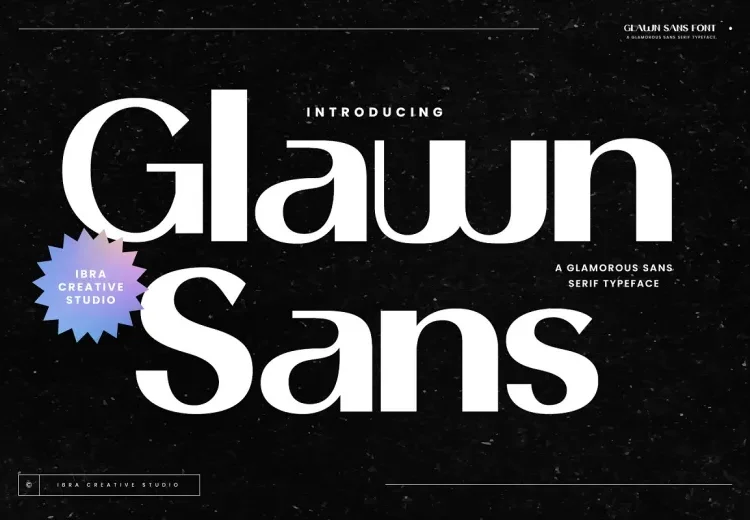
Glawn Sans Font
Glawn Sans is a sophisticated sans-serif font that embodies contemporary elegance through its refined lines and detailed features. Every character is meticulously crafted to blend timeless beauty with a modern minimalistic style, striking a perfect balance between simplicity and extravagance.
This elegant and versatile font is ideal for a variety of design projects, including premium branding and editorial layouts. Its sleek, minimalistic aesthetic enhances any visual communication with a touch of sophistication, making it a valuable asset for both high-end and everyday design needs.